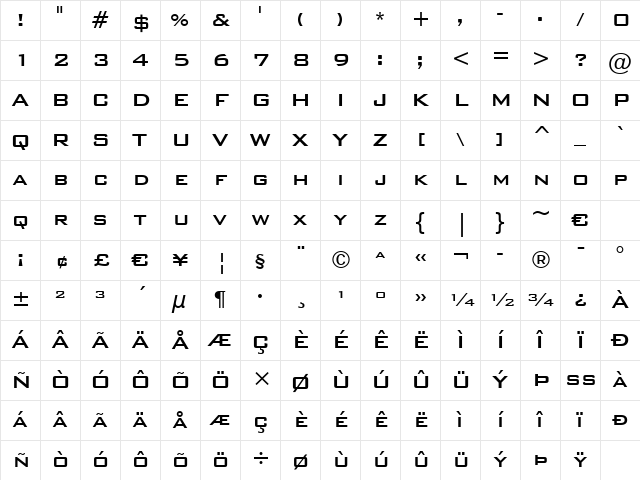
BankGothic Md BT Medium
Complete BankGothic Md BT Medium glyph index. Displaying only characters natively supported by BankGothic Md BT Medium font.
Design Context for BankGothic Md BT
BankGothic Md BT takes a clean, functional approach - its unadorned letterforms prioritise legibility and work reliably across screen and print environments.